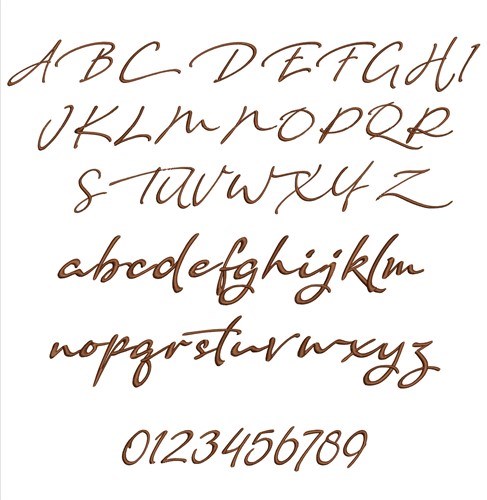
Unicorn Creatives is happy to present Terramere Embrilliance Font machine embroidery font which has Flowing script machine embroidery font, ideal for monogramming on cushions and table linens. This well-crafted font is perfect for producing a handmade look. Available in BX font and Embrilliance formats. included. If you would like to view more embroidery fonts and alphabets please search our embroidery fonts page.